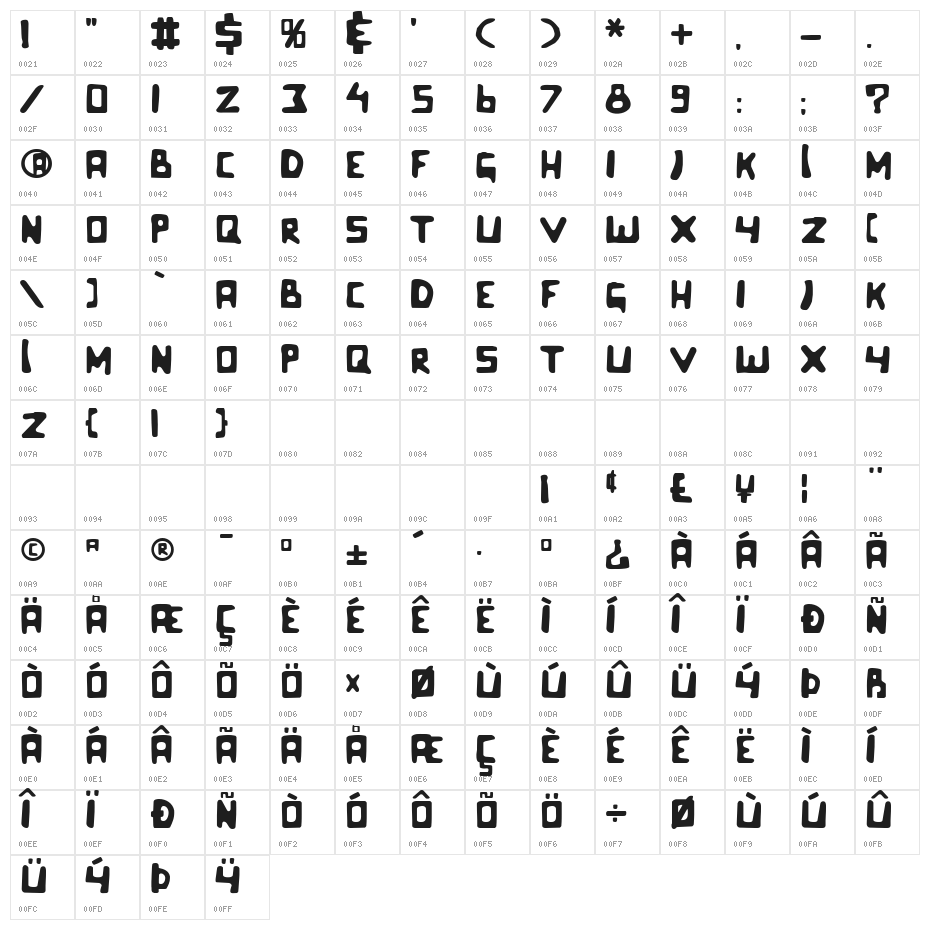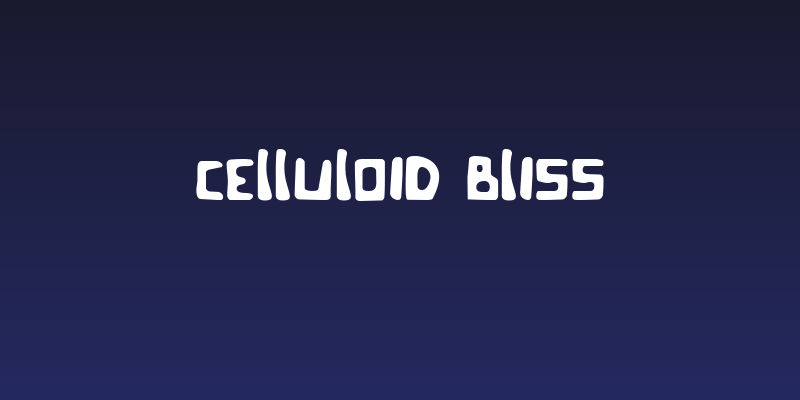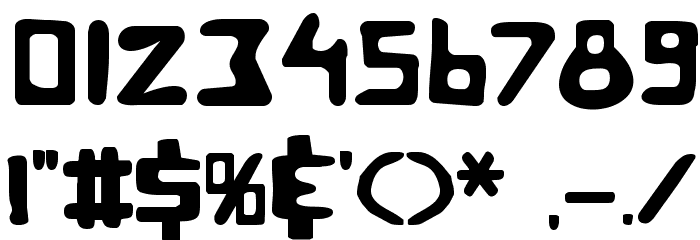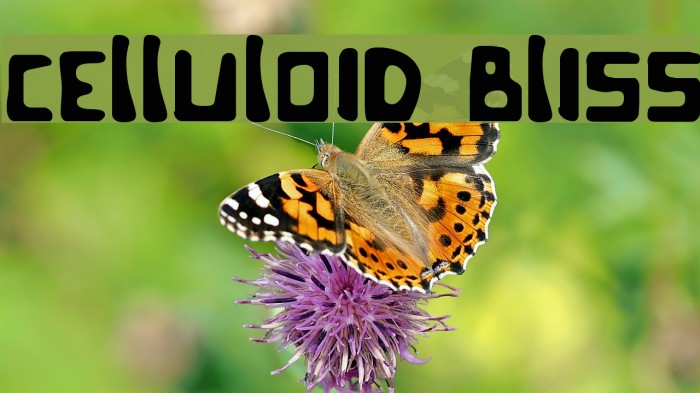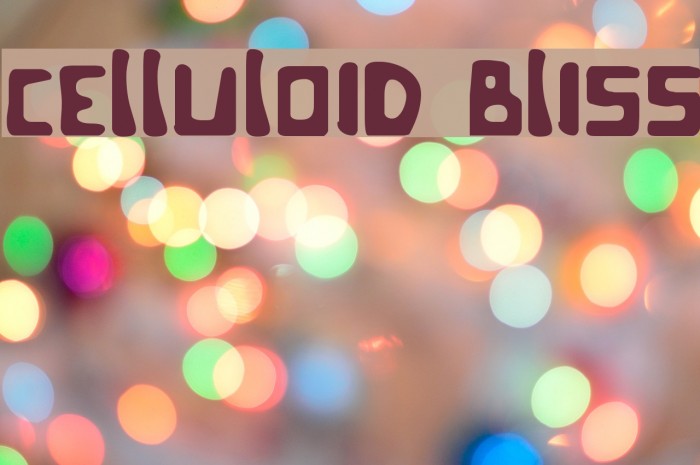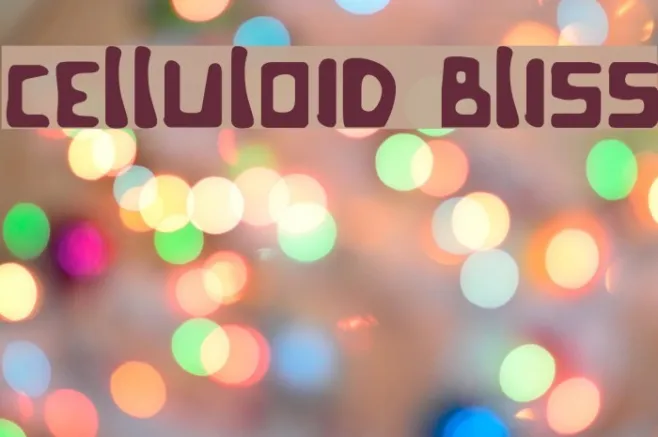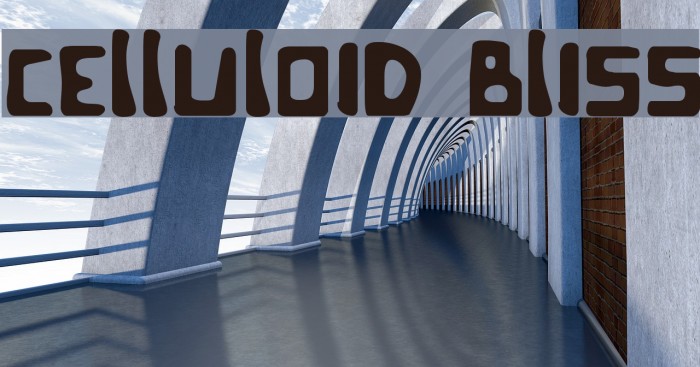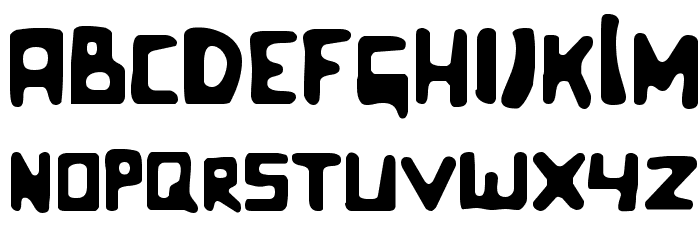
Celluloid Bliss Font
Celluloid Bliss Description
This font features a bold, playful design with a distinctly retro vibe. The characters are rounded and thick, giving them a strong presence on the page. The style is reminiscent of mid-20th century design, with a touch of modern flair. Each letter is uniquely crafted, with subtle variations that add to the overall charm. The numbers and special characters maintain the same playful aesthetic, ensuring consistency across all text elements. This font is perfect for projects that require a fun and engaging look, such as posters, advertisements, and branding materials.
| Proposed Projects | Ideal for posters, advertisements, branding, and any project needing a fun, engaging look. |